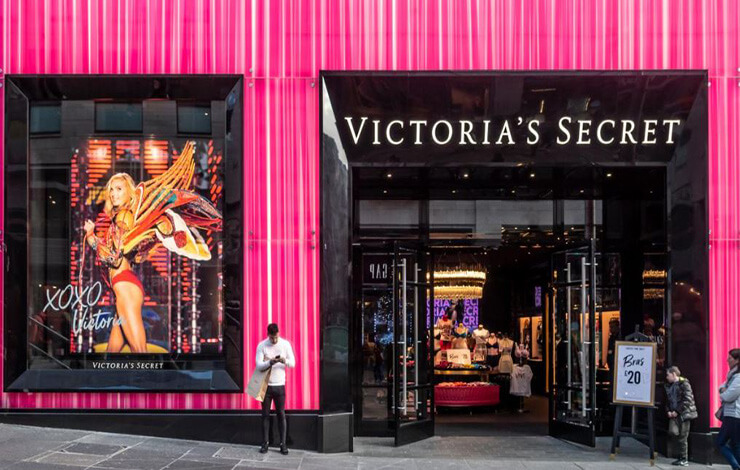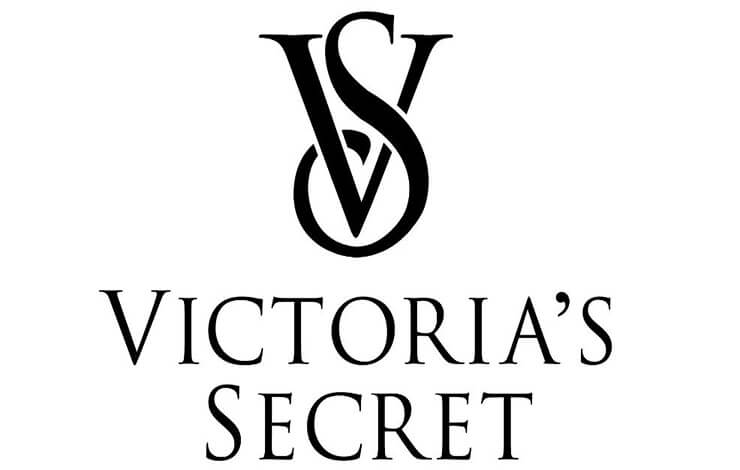
Introducing Victoria Secret font! Victoria’s Secret is an American lingerie, clothing, and beauty retailer known for high-visibility marketing and branding.
Both Roy Raymond and his wife Gay Raymond are the founders of the brand. As of 2006, Victoria’s Secret has over 1,000 stores across the United States.
And now it has become the largest US retailer of women’s lingerie. Due to its popularity, many designers look forward to Victoria’s Secret logo font.
The font used in the logo of Victoria’s Secret is very similar to the Tarjan Pro font. Adobe Originals is a kind of foundry within Adobe, which first took charge of designing it in 1989.
This elegant font family is ideal for any unique design approach. You can create banners, write books, logo designs, mockup packaging, fashion magazines, and many more. It would also be a smart idea to develop a game or website template using it.